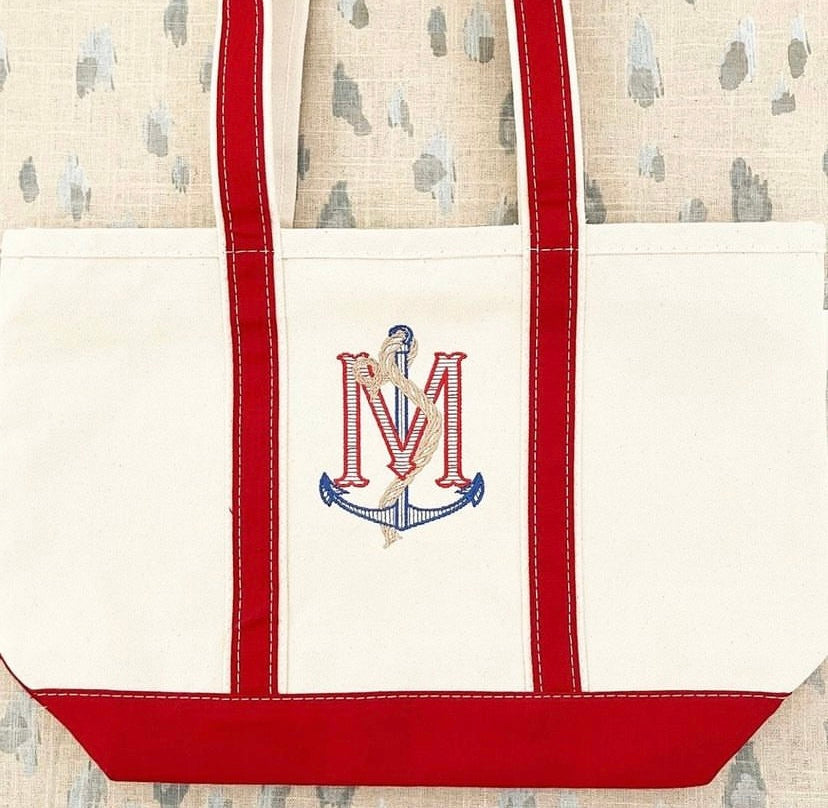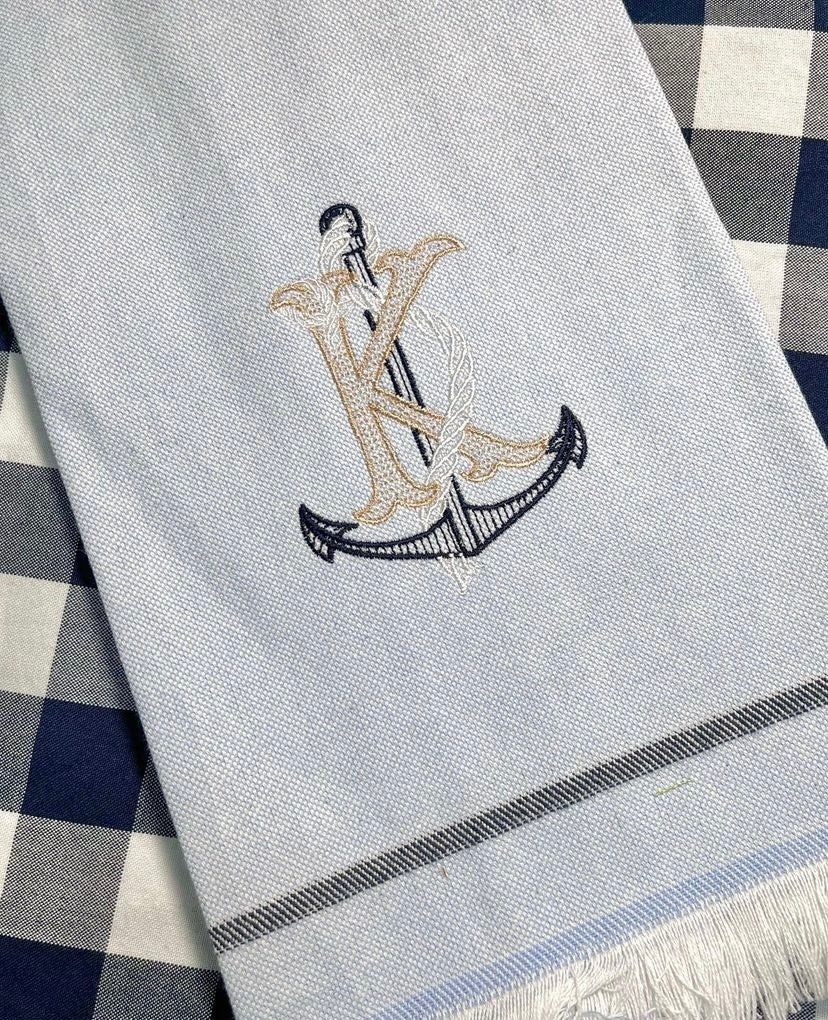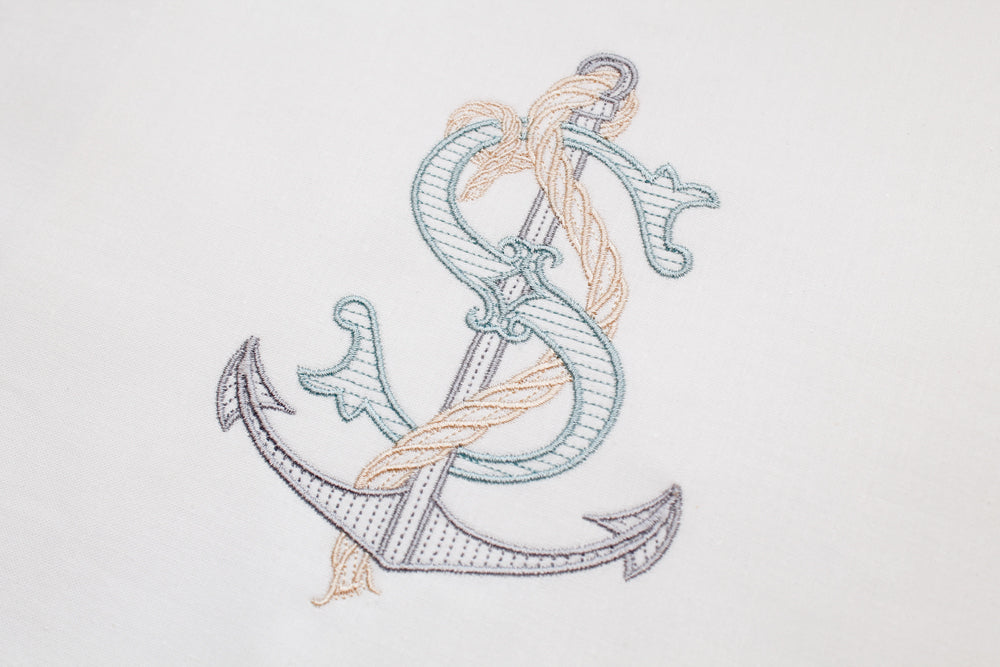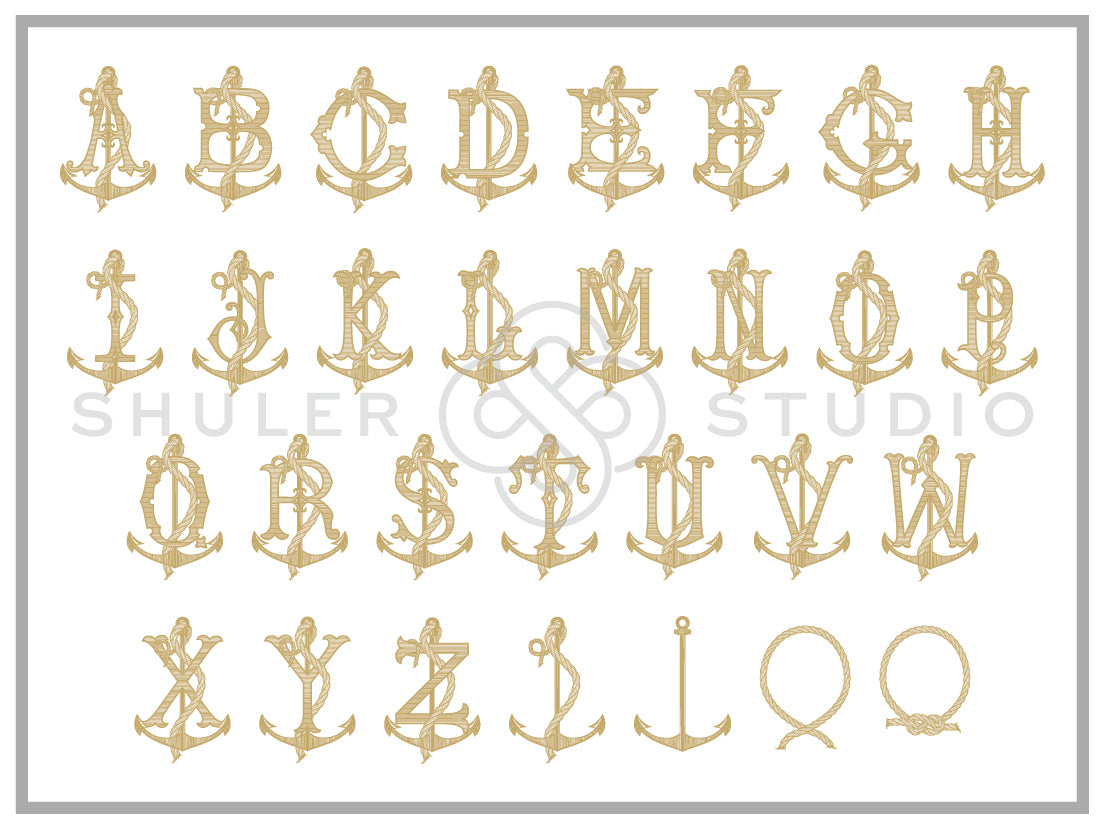
Single Nautical Font for Embroidery
Our Single Nautical is a summertime favorite! This collection consists of 26 detailed designs featuring an anchor and rope motif plus a bonus of 4 nautical accessories.
Perfect for embroidery, the careful attention in the digitization of each design makes personalization unique and beautiful!